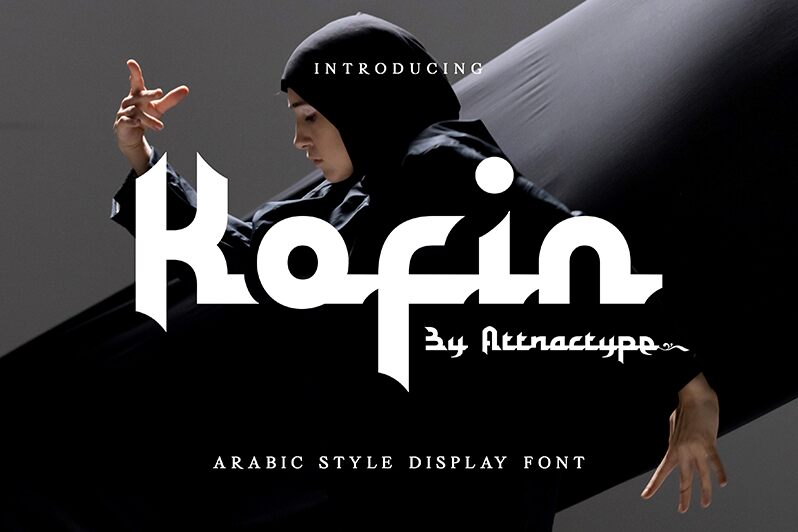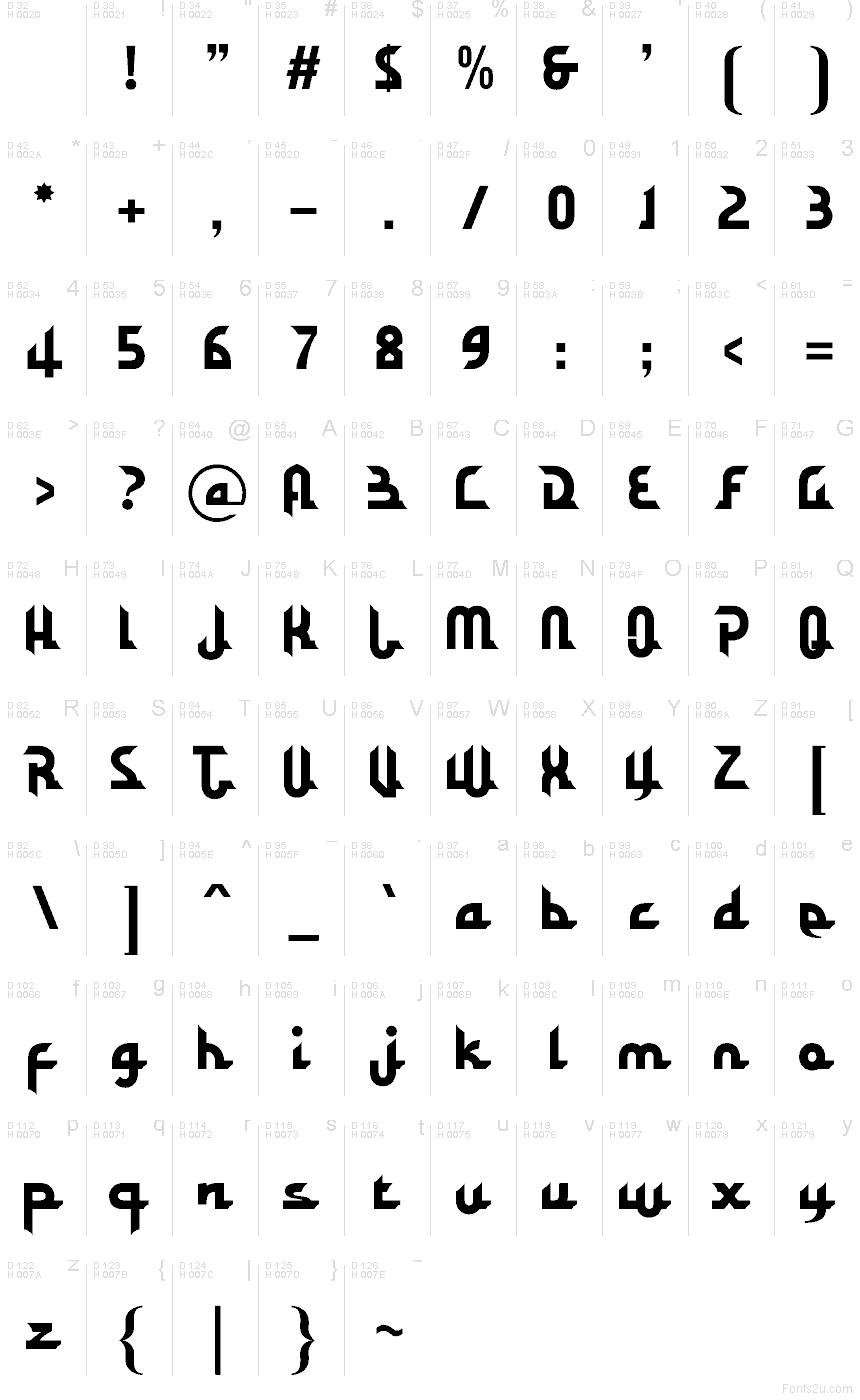
Kofin
Kofin font by Attractype is a free faux-Arabic decorative typeface that turns bold, blocky shapes into a flowing, calligraphic rhythm. Heavy strokes, stepped angles, and smooth arches echo Middle Eastern signage while staying firmly in Latin letters, giving your titles that atmospheric, street-market energy. The letters feel sculpted rather than drawn, with tight spacing that creates a strong, continuous word silhouette.
Using Kofin, you can quickly give restaurant branding, café menus, hookah lounge signage, music posters, packaging, and social media graphics a distinctive, exotic-inspired headline style. This free font shines at large sizes where its chunky curves and sharp cuts can really show. For supporting text, pair Kofin with a clean geometric sans to keep things readable while letting those bold Kofin headlines steal the scene.